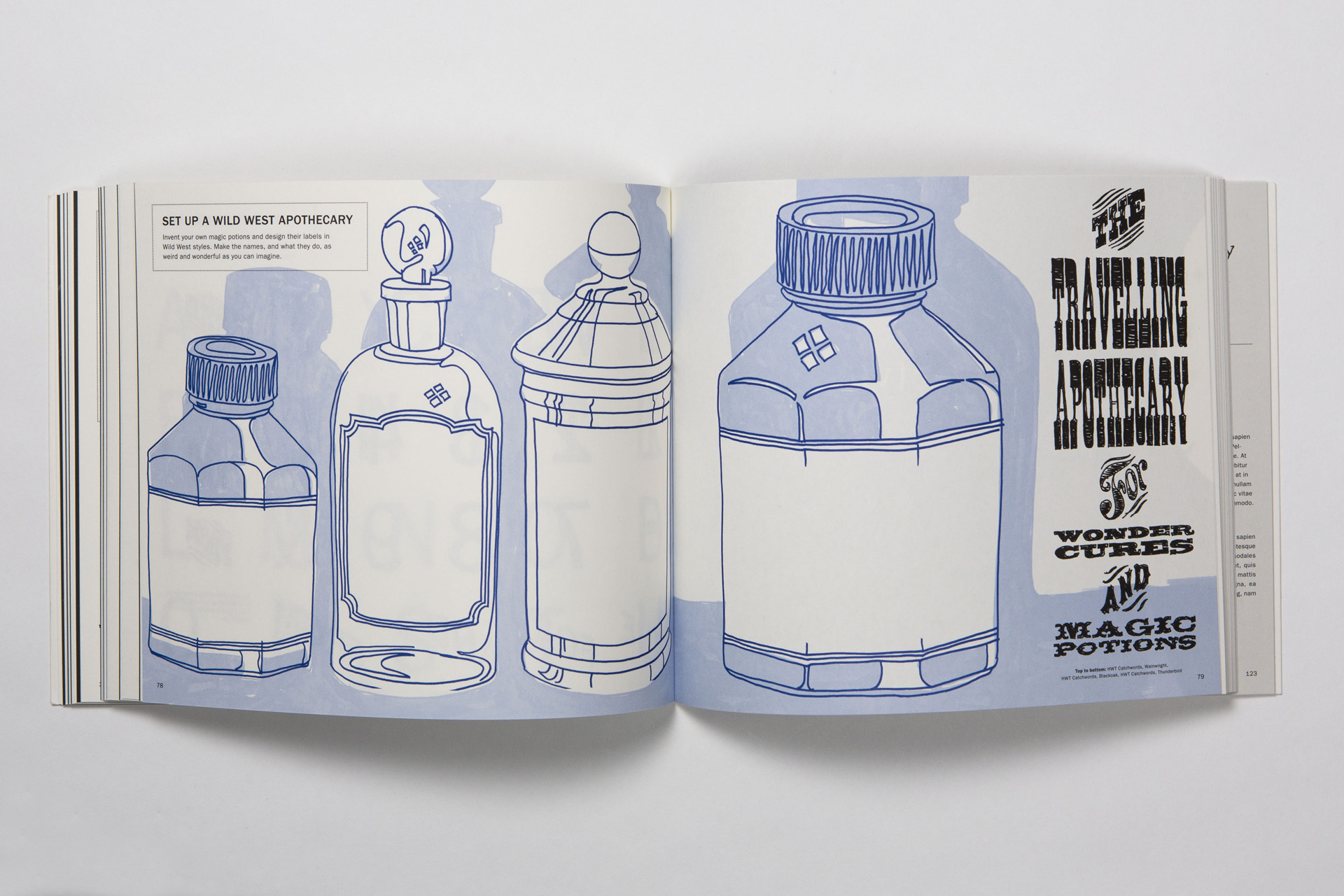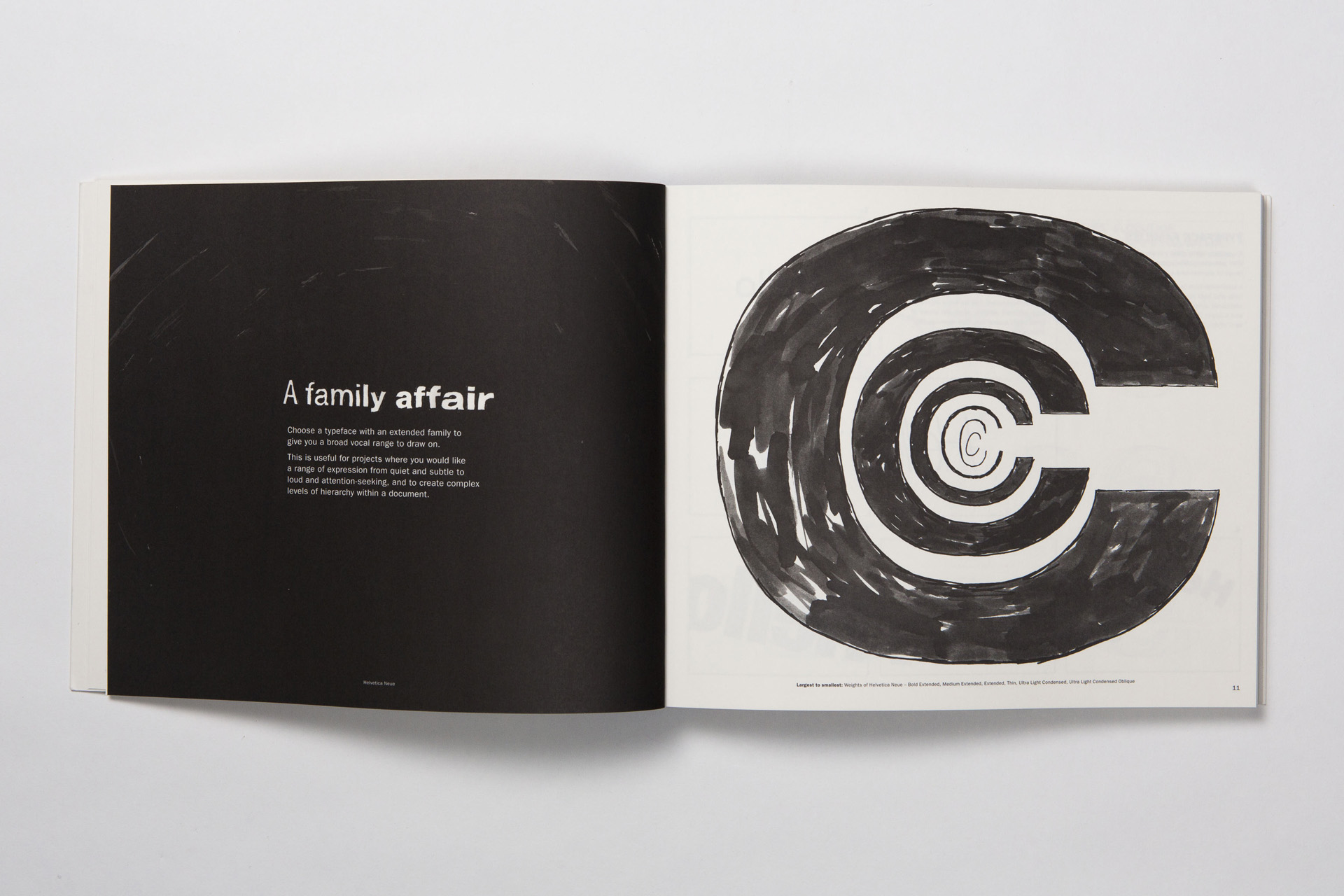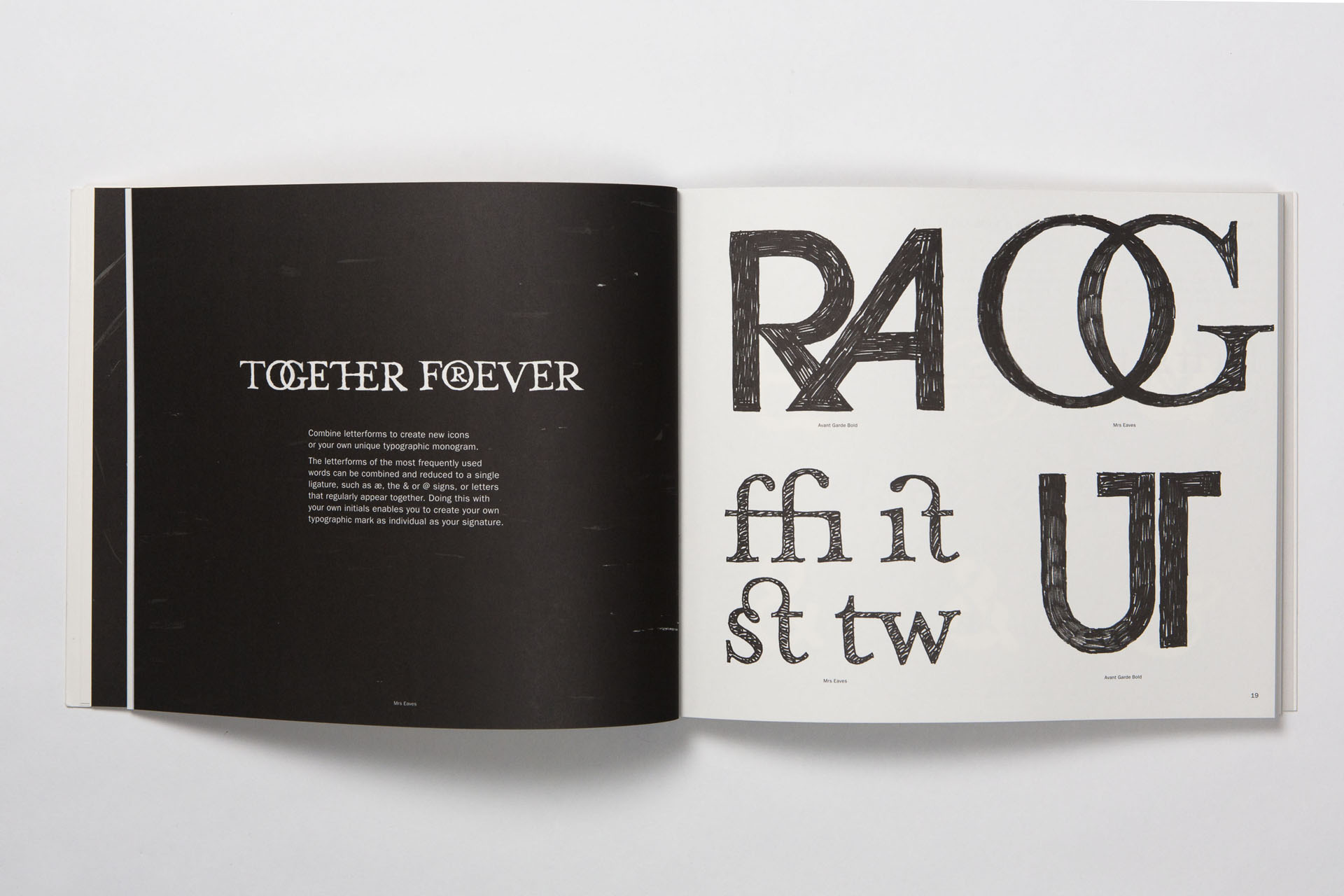
How to draw type and Influence People, and why this matters
By Sarah Hyndman
The new book by Type Tasting founder Sarah Hyndman is a hands-on activity book that invites you to completely immerse yourself in the world of fonts investigating and hacking them for yourself. Get creative as you learn about typefaces by exploring their shapes using pen and pencil, and do this in your own style so the book becomes uniquely your own. Think of this as life drawing with fonts.
I first fell in love with the shapes of words and letterforms as a child in a sweetshop. I would gaze at the styles and shapes that would literally bring the different flavour experiences to life; knowing which would fizz, melt-in-my-mouth, taste sour and then sweet, or pop explosively and noisily. I would spend hours drawing my own versions of sweet wrappers, and inventing fantastical letterforms that I would then stock in my toy sweet shop to sell to my brother and sister.
It’s one thing to read a description of a typeface; it’s an entirely different experience to pick up a pencil and explore the intricate shapes that make each font unique. In my Type Tasting workshops I find that drawing is an extremely effective way for people to learn about type styles, as I discovered when I was sketching sweet wrappers as a child. This is backed up by science, which shows that hand drawing on paper triggers more of our senses and this multiplies our ability to remember.
There is also a rich tradition of hand drawing type; graphic designers would carefully draw typographic layouts for typesetters to recreate and print before computers were commonplace in the design studio. Doing this gave them an in-depth understanding of the subtle differences between typefaces, and the confidence to work with a wide range of different styles.
My mission is to make typography fun and exciting for everybody, not just experts and academics. I think this is important because type is woven into our everyday lives, especially in today’s Information Age in which so much of the information we receive is what we read. Type styles reflect developments in technology, art movements, changing fashions, popular culture and can document the history of your own life—this is what makes type so exciting.
Whatever your level, from beginner to expert, I would like this book to inspire you to feel excited and more adventurous next time you scroll down the font menu on your computer.
We are all type consumers and we interact with typefaces frequently as we go about our everyday lives. We may not be consciously aware of it, but the shapes and styles of the fonts themselves communicate a huge amount of information independently of the words they spell out. We instinctively understand what they are communicating to us because we have been learning to recognise these visual codes all our lives.
A font has the power to transform the meaning of a word: to give it a voice and a personality, to make it look knowledgeable, extrovert or stylish. Fonts keep us safe and help us find our way, and sometimes perform a sleight of hand. Fonts interact with all our senses, giving us a glimpse of what a product might taste or smell like and how much it will cost when we buy it.
How to Draw Type and Influence People: An Activity Book
Lettering or font? Lettering is a one-off composition often drawn or painted by hand, whereas type and fonts are pre-fabricated alphabets that can be repeated on a screen or in print. This is a book about the fonts you find in your drop down menu.